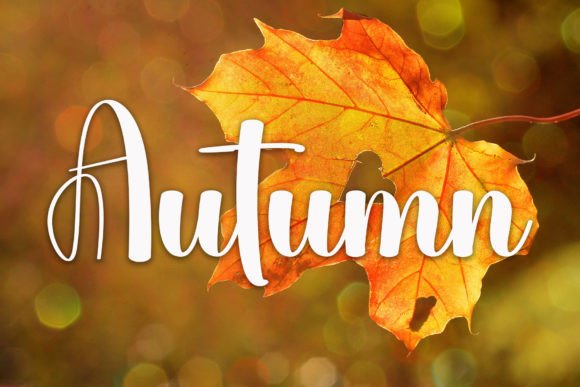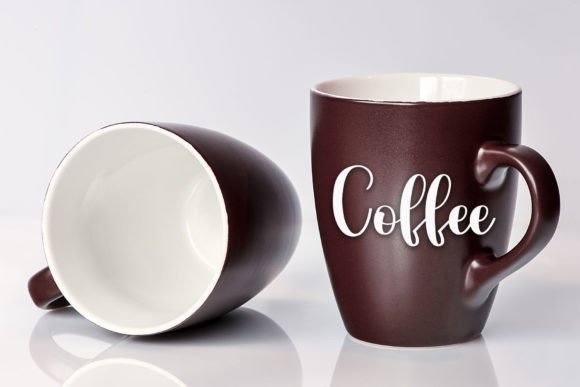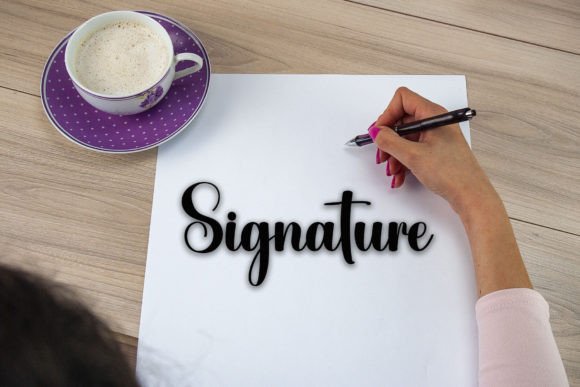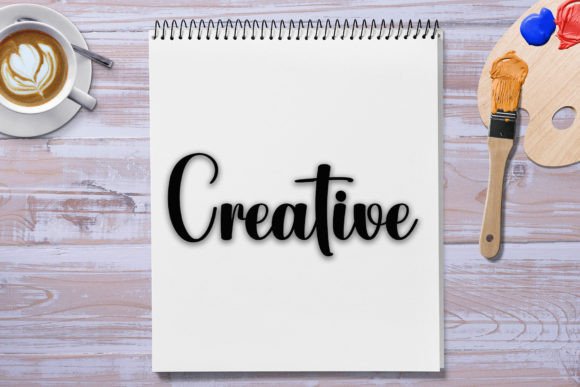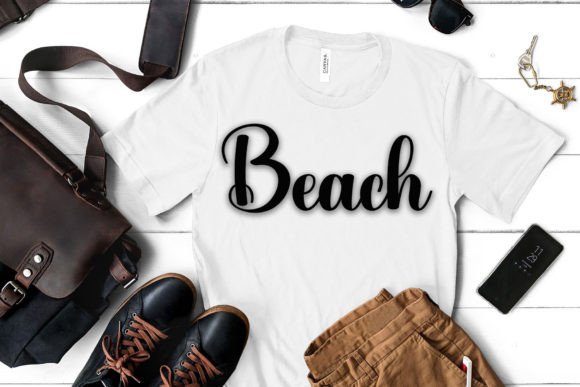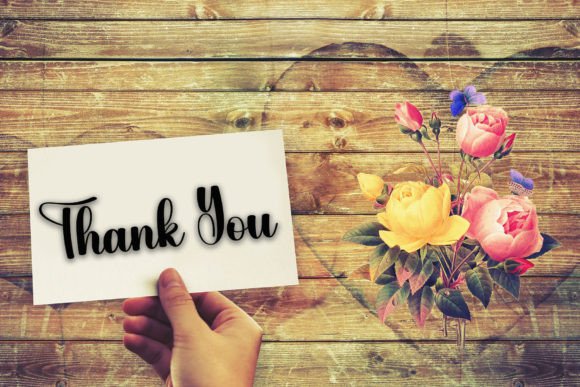
Introduction to Palestine Font
As a designer, there’s nothing quite like the thrill of discovering a new font that sparks creativity and sets your project apart. For me, that moment came when I stumbled upon the Palestine Font – a beautiful, elegant handwritten font that instantly captured my attention. Its unique blend of traditional and modern elements made me envision a world of possibilities for my next creative project.
But what truly sets the Palestine Font apart is its timeless style, which effortlessly adapts to a wide range of design applications. Whether you’re working on a branding project, a social media campaign, or a blog post, this font is sure to elevate your design and leave a lasting impression. And the best part? It’s available for free download, making it an invaluable resource for designers of all levels.
With its high-quality design and transparent background, the Palestine Font is a valuable addition to any designer’s toolkit. So why not fall in love with its distinct style and use it to create spectacular designs that showcase your creativity and skill?
Key Features of Palestine Font
- High-quality font designed for creative projects, ideal for use as a design resource.
- Available in a range of sizes, from 100 to 500 points, making it suitable for various design applications.
- Designed at a high resolution of 300 DPI, ensuring crisp and clear typography.
- Unique characteristics include intricate details and subtle nuances, making it a standout design resource.
Honest Review: Palestine Font
I recently stumbled upon the Palestine Font, a unique and versatile font that caught my attention. As a designer, I appreciate discovering new and exciting resources to elevate my creative projects. In this review, I’ll share my honest thoughts on this font.
- ✨ The font offers a transparent background, allowing for seamless integration with various design elements.
- ✨ The Palestine Font is available in high quality, ensuring crisp and clear typography.
However, I do have a few reservations:
- ⚠️ The font’s availability is limited to a specific set of languages, which may restrict its usability in multilingual projects.
Overall, the Palestine Font is a solid design resource that can add a unique touch to your creative projects. While it has some limitations, its free download and high-quality typography make it a worthwhile addition to any designer’s arsenal. With careful consideration of its limitations, I believe the Palestine Font can be a valuable asset in your design workflow.
Palestine Font
The Palestine Font is a unique and versatile design resource that can elevate any creative project. With its transparent background and high-quality design, it’s perfect for adding a touch of sophistication to your work.
Tips for Getting the Most Out of Palestine Font
To get the most out of the Palestine Font, experiment with different font sizes, colors, and combinations. You can also use it in conjunction with other design elements to create a cohesive and visually appealing design.
The Palestine Font is perfect for a range of creative projects, including logos, business cards, and marketing materials. Its high-quality design and transparent background make it ideal for use in presentations, documents, and other visual communications.
Alternatives to Palestine Font
Akzidenz-Grotesk
Akzidenz-Grotesk is a classic sans-serif font suitable for a variety of creative projects, including brochures, magazines, and business cards. It’s available for free download and features a high-quality design with a transparent background.
When to use: Use Akzidenz-Grotesk for projects that require a clean and modern look. It’s a great alternative to Palestine Font when you need a more traditional sans-serif font.
Comparison: While Palestine Font is a custom-designed font, Akzidenz-Grotesk is a well-established and widely used font. Akzidenz-Grotesk has a more traditional feel, whereas Palestine Font has a more unique and creative design.